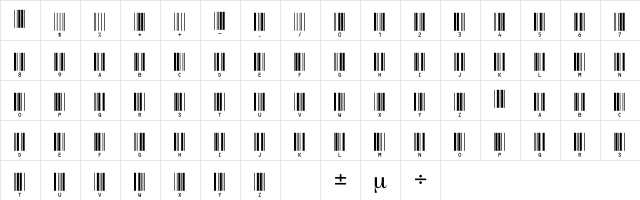
Barcode3_9AL Normal
Design Context for Barcode3_9AL Typeface
Barcode3_9AL brings the precise, column-aligned rhythm of monospaced typography to designs that value technical clarity and systematic order.
A natural fit for code editors, technical documentation, developer-focused branding, and terminal-inspired UI.